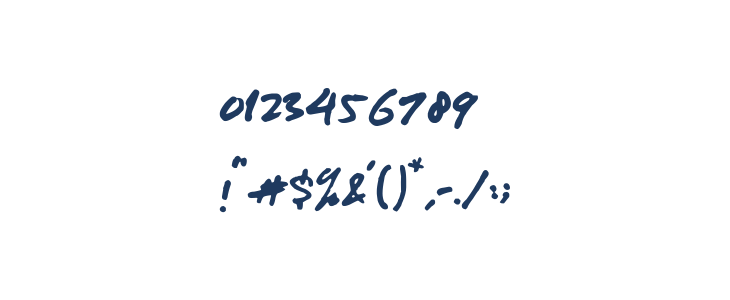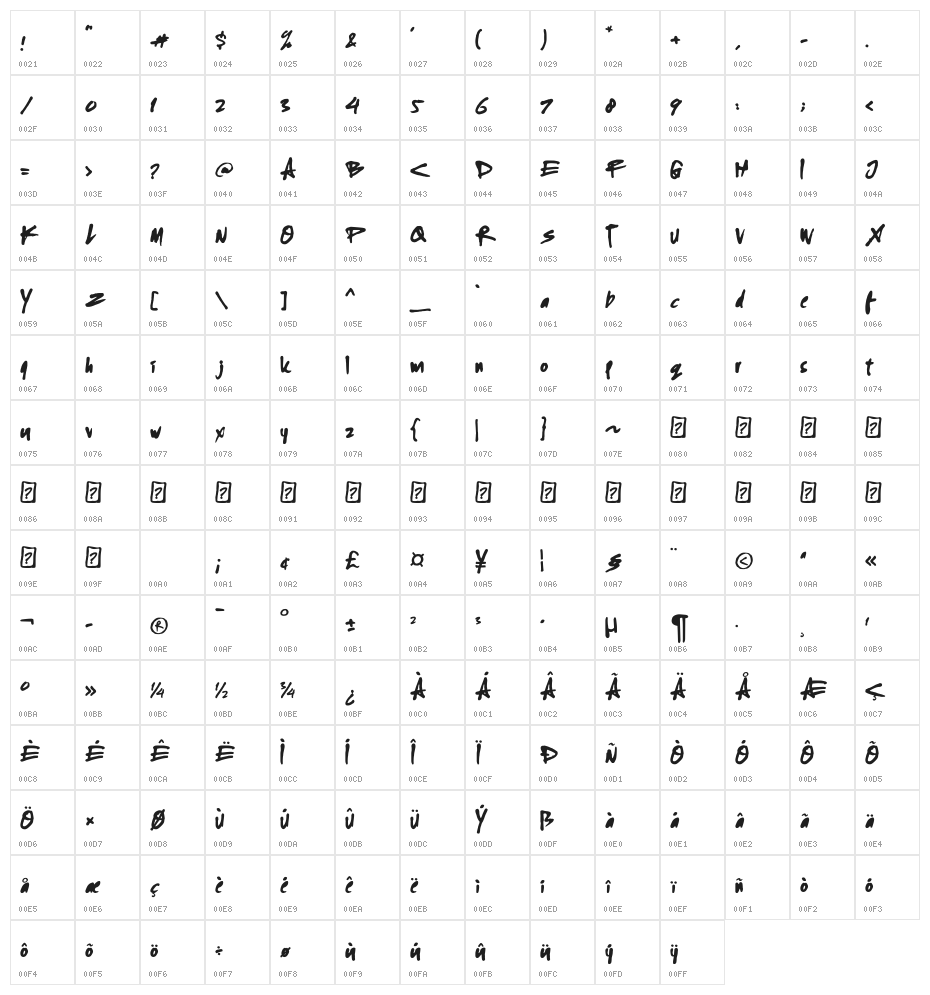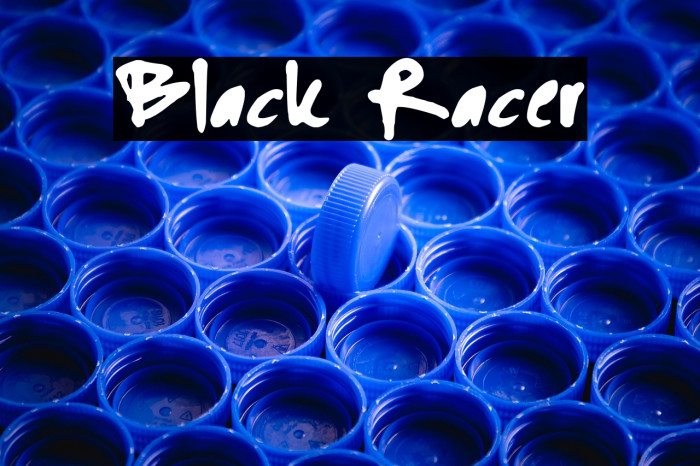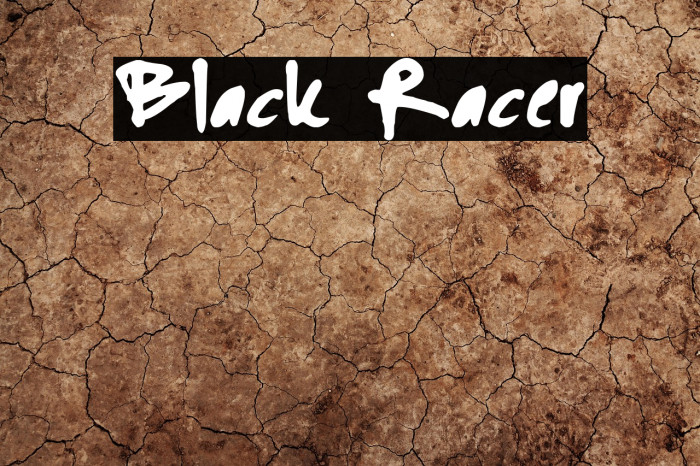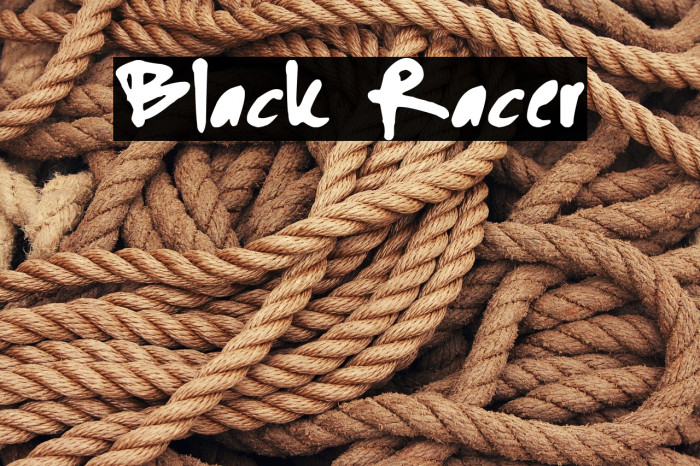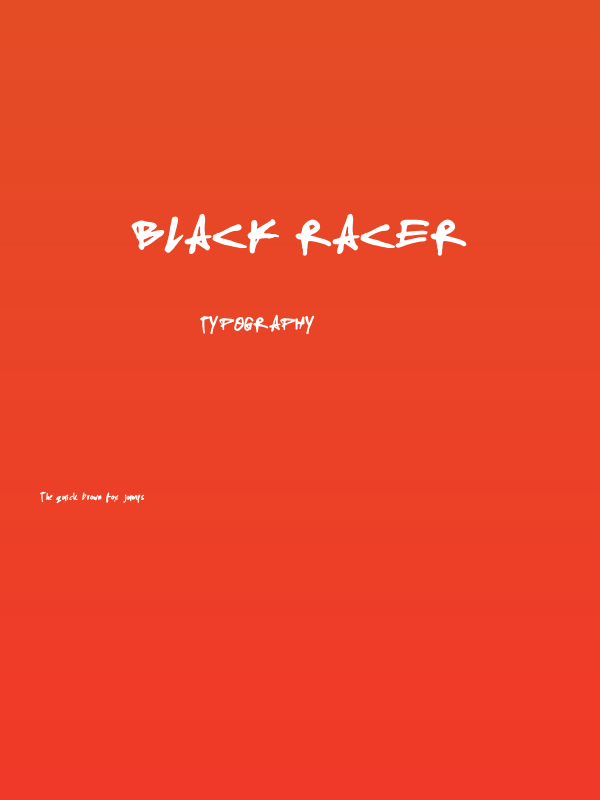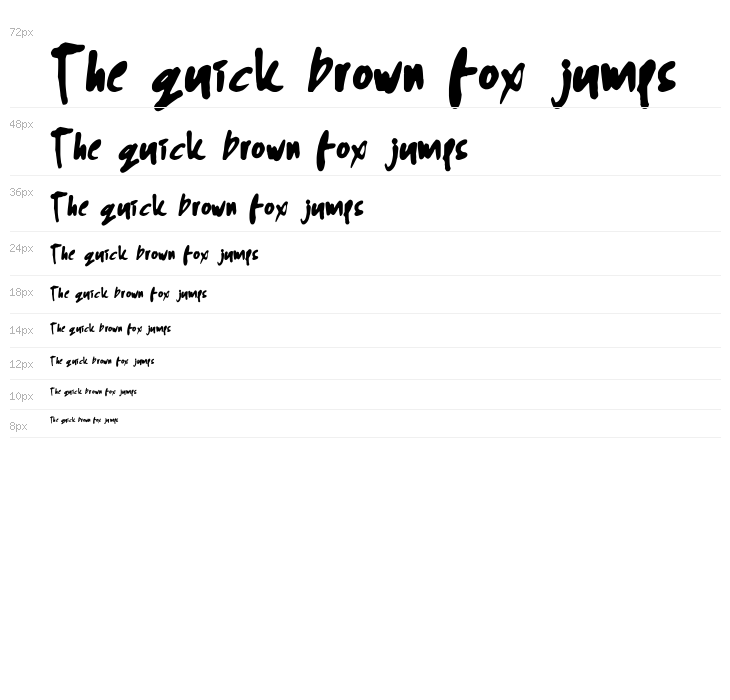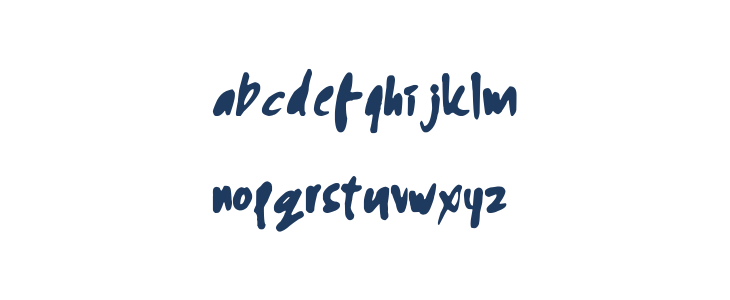
Black Racer Font
Black Racer Description
This font exudes a bold, expressive style with a handwritten appearance, characterized by its thick, uneven strokes and dynamic flow. The letters have a casual, artistic flair, making them stand out with their unique, slightly irregular shapes. The uppercase and lowercase letters maintain a consistent style, while the numbers and special characters integrate seamlessly, adding to the font's cohesive look. Its energetic and informal nature makes it ideal for projects that require a personal touch or a creative edge.
| Use Case | Headlines, Logos, Creative projects |
| Proposed Projects | Ideal for creative projects such as posters, invitations, branding, and social media graphics where a personal, artistic touch is desired. |